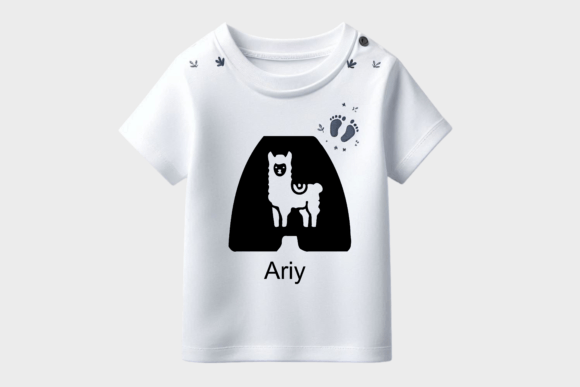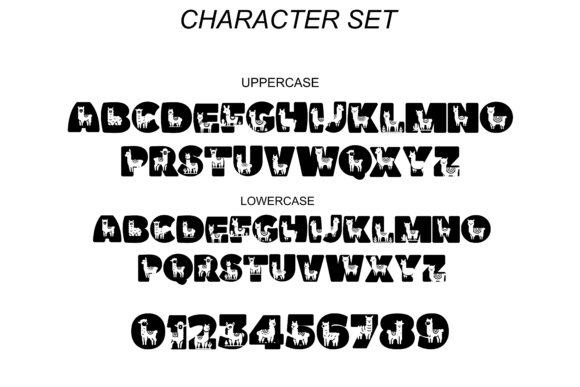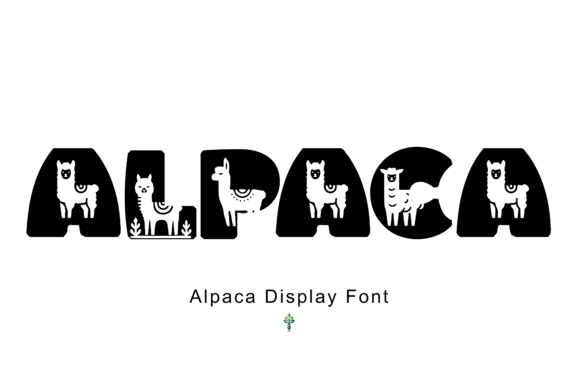
Discover the Enchanting World of Alpaca Font
Take a plunge into the captivating cosmos of beautifully rendered letters with Alpaca Font. This unique typographic expression embodies the boundless scope of artistic liberty, weaving a hypnotic allure into your endeavors. Explore the dynamic power of Alpaca Font, where meticulous precision melds seamlessly with enchanting whimsy, specifically designed to amplify the allure of your artistic exploits.
The Genesis of Alpaca Font
Alpaca Font is more than just a typographic innovation; it’s an artistic journey that bridges the gap between imagination and reality. Born from the desire to push the boundaries of conventional typography, Alpaca Font emerges as a beacon of creativity, inviting designers and crafters to explore new dimensions of visual expression. Its creation is a testament to the evolving nature of design, where tradition meets innovation to produce something truly mesmerizing.
Characteristics of Alpaca Font
At the heart of Alpaca Font lies a meticulous design philosophy that marries precision with whimsy. Each letterform is crafted with attention to detail, ensuring that every curve, line, and stroke contributes to a cohesive yet distinct aesthetic. The font’s unique characteristics include:
• Fluid Lines: Alpaca Font features fluid, organic lines that give it a dynamic and approachable feel.
• Whimsical Touches: A hint of whimsy in its design makes Alpaca Font stand out, adding a playful edge to any project.
• Versatility: Its versatile nature allows it to be used across various mediums, from digital platforms to print materials.
Applications of Alpaca Font
The versatility of Alpaca Font makes it an invaluable asset for designers and crafters across various disciplines. Here are some of the key areas where Alpaca Font can make a significant impact:
• Graphic Design: Elevate your branding, logos, and marketing materials with a touch of elegance and whimsy.
• Digital Media: Enhance your website, social media posts, and digital advertisements with a font that captures attention.
• Stationery and Invitations: Add a personal touch to your cards, invitations, and letters with Alpaca Font’s charming aesthetic.
• Crafting and DIY Projects: Whether it’s handmade cards, scrapbooking, or other craft projects, Alpaca Font can add a unique flair.
Why Choose Alpaca Font?
In a world where standing out is increasingly challenging, Alpaca Font offers a distinctive edge. Here are a few reasons why designers and crafters are gravitating towards this unique typography:
• Uniqueness: In a sea of generic fonts, Alpaca Font offers a breath of fresh air with its distinctive style.
• Emotional Connection: Its whimsical nature can evoke emotions and create a deeper connection with the audience.
• Versatility: Suitable for a wide range of projects, Alpaca Font is a versatile tool that can adapt to various design needs.
Alpaca Font is not just a typographic innovation; it’s an invitation to explore the limitless possibilities of design. With its unique blend of precision and whimsy, it offers a fresh perspective for designers and crafters looking to make their mark. Whether you’re working on a professional project or a personal crafting endeavor, Alpaca Font is poised to elevate your creative expressions to new heights. Dive into the captivating world of Alpaca Font and discover a typography that speaks to your artistic soul.